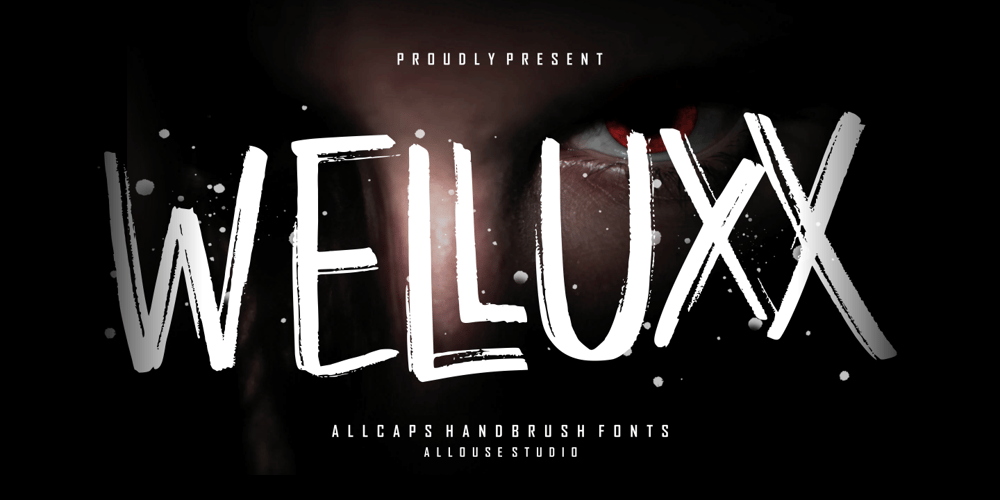
Welluxx Font Family was designed by Fachrizal Yusuf and published by Allouse Studio. Welluxx contains 1 styles and family package options. Proudly Presenting, WELLUXX a Allcaps Handbrush Font.WELLUXX is perfect for any titles, logo, product packaging, branding project, megazine, social media, wedding, or just used to express words above the background.WELLUXX also come with Multi-Lingual Support.Enjoy the font, feel free to comment or feedback, send me PM or email. Thank You!